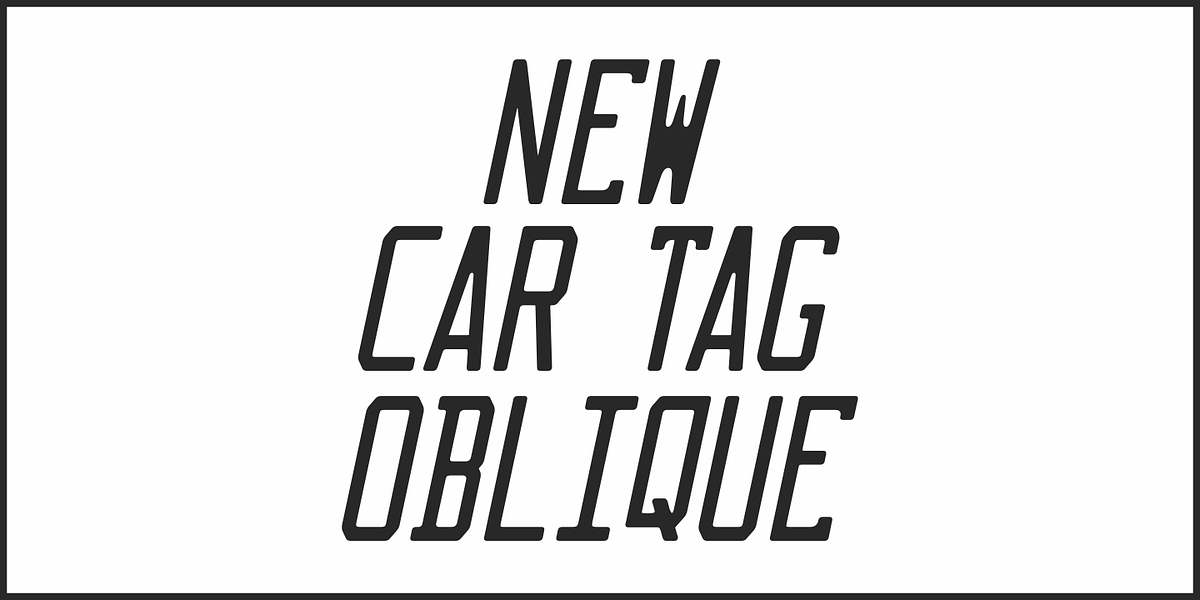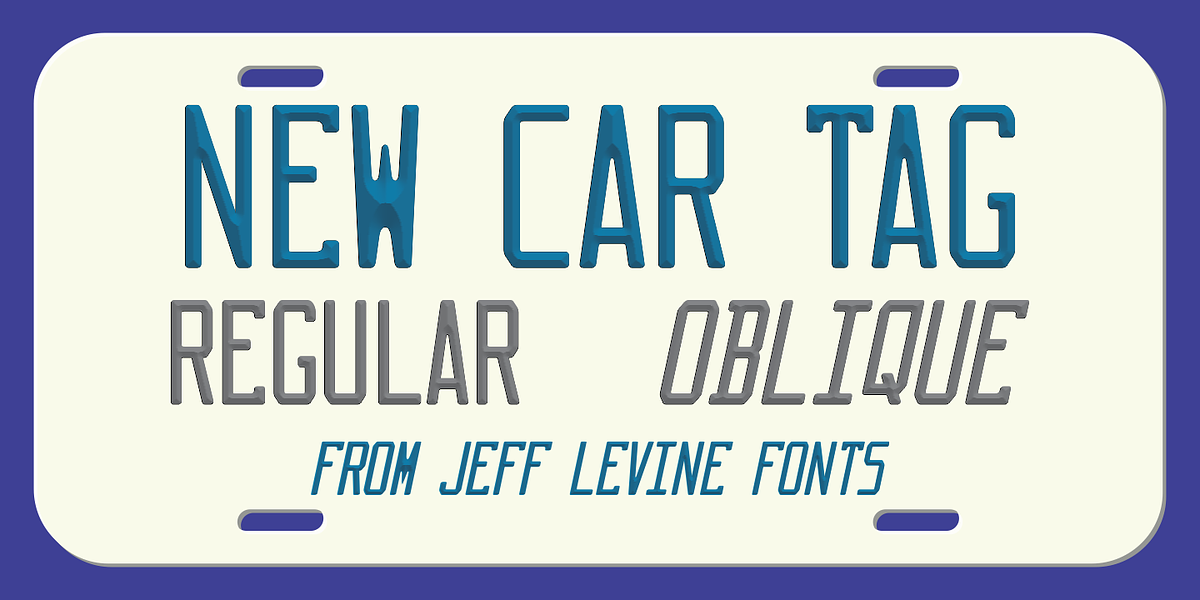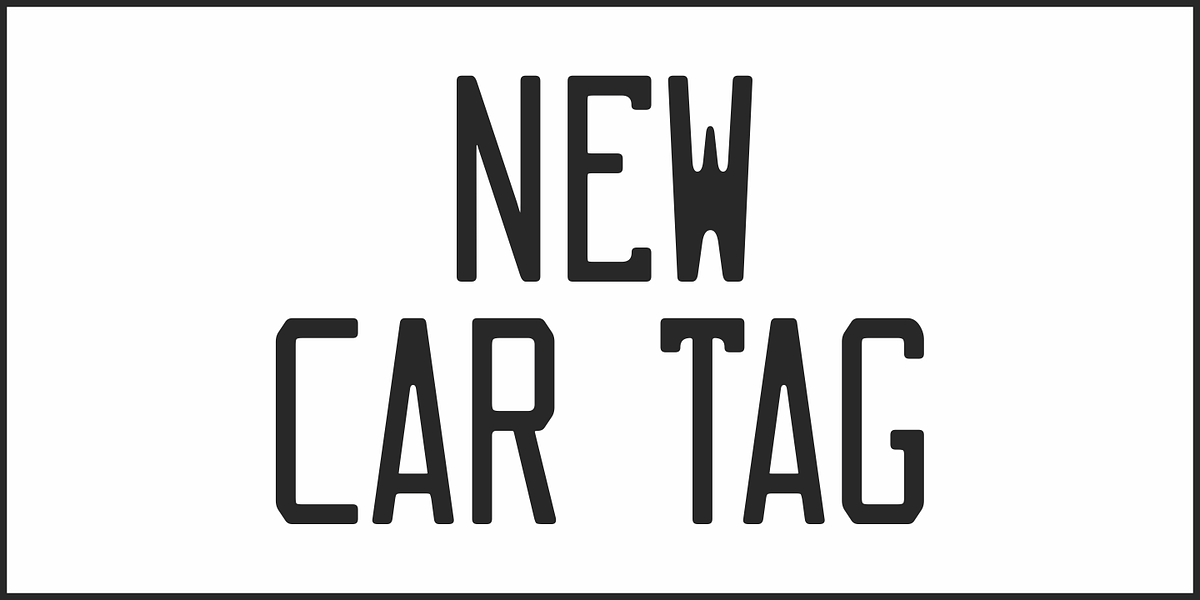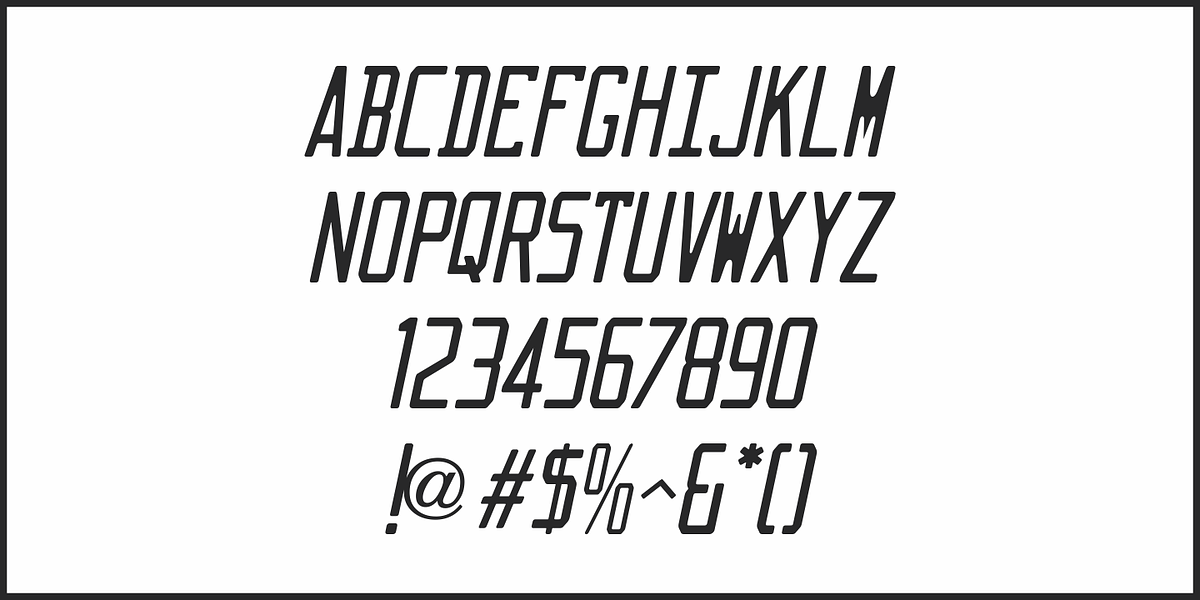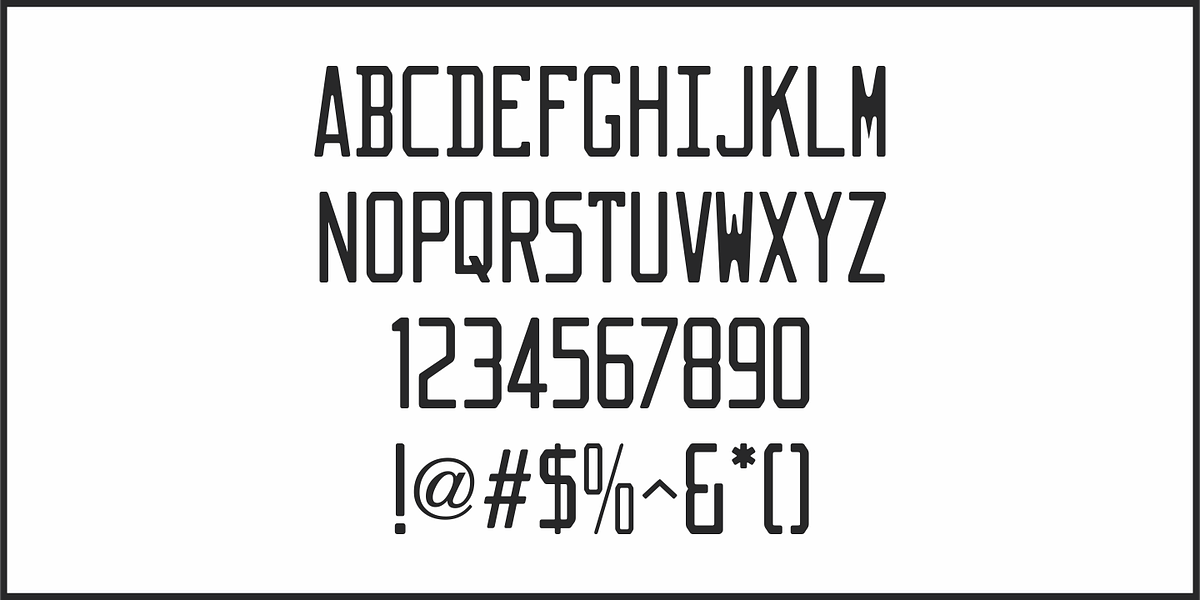
New Car Tag JNL
Around 2018 or 2019, the State of Florida introduced new letter and number characters on its auto plates.
Inspired by this change, Jeff Levine Fonts offers up a digital version of this lettering named New Car Tag JNL, which is available in both regular and oblique versions (for those who want a more sporty look).
Some people prefer a rounded 'zero' to differentiate between the regular zero and the letter 'O'. You can find this alternate character located on both the solid bar and broken bar glyphs.